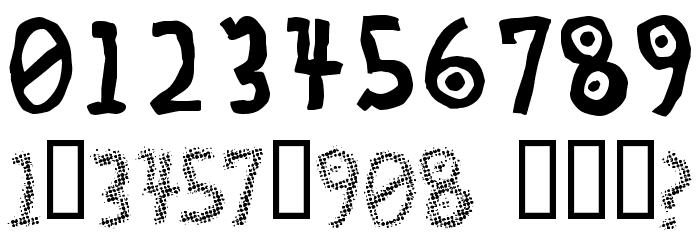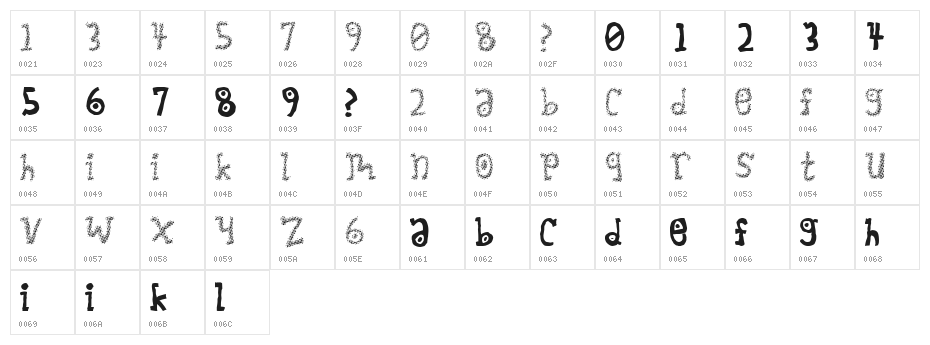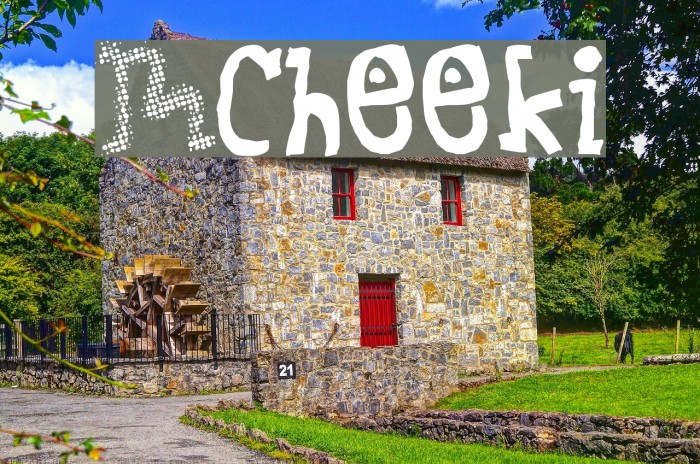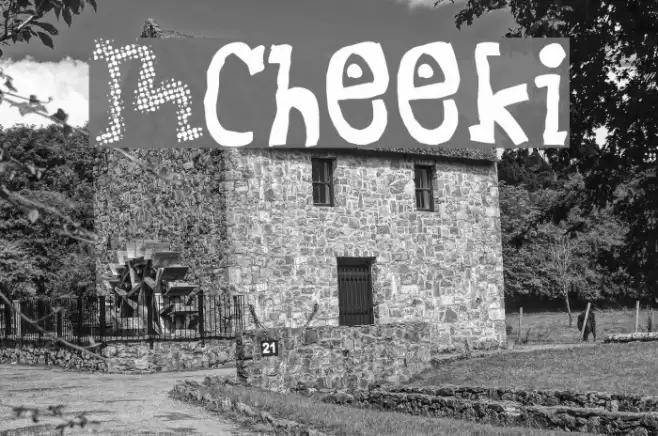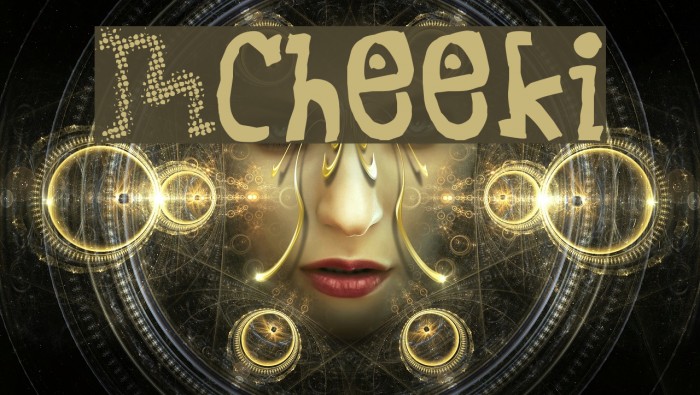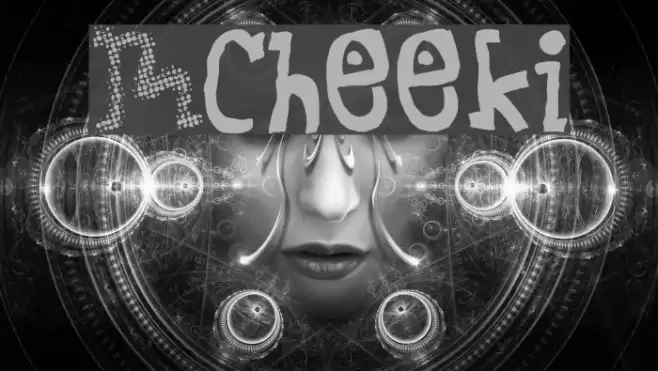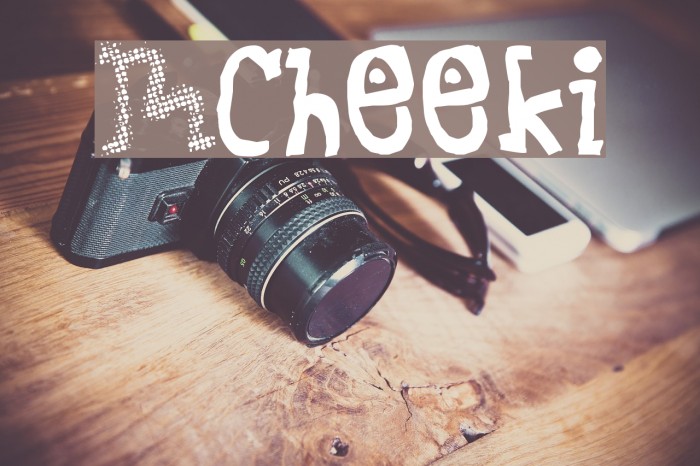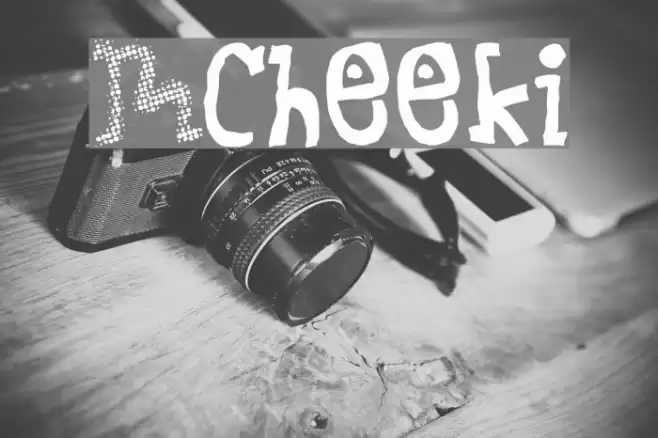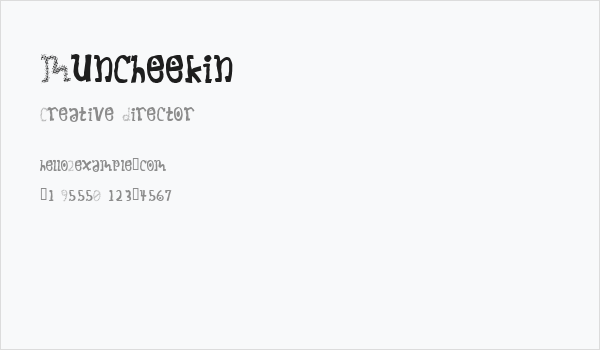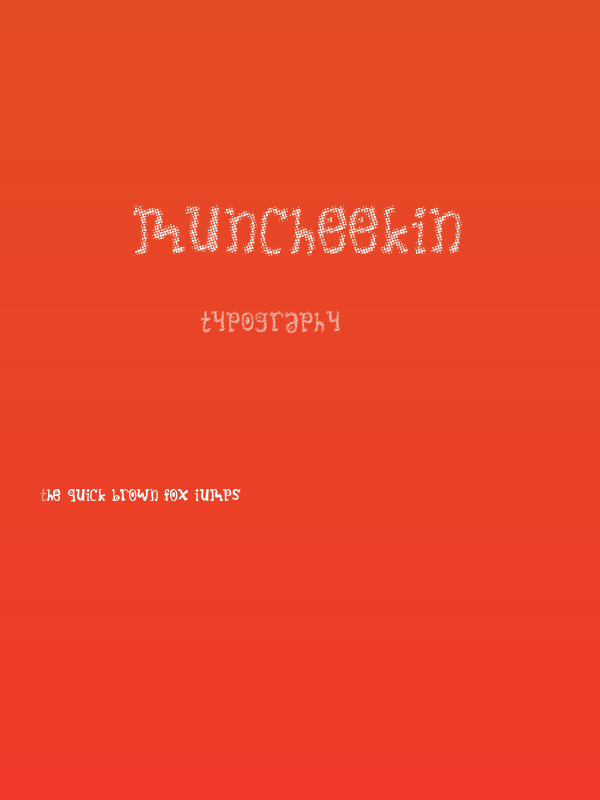
Muncheekin Font
Muncheekin Description
This playful and whimsical font features a unique, hand-drawn style with a slightly irregular baseline, giving it a lively and dynamic appearance. The characters are bold and rounded, with a distinct, cartoonish flair that adds a sense of fun and creativity. The font includes both uppercase and lowercase letters, as well as numerals and a selection of special characters. Its bold strokes and exaggerated forms make it highly legible, while the quirky design elements add personality and charm. The font's overall style is reminiscent of children's handwriting, making it ideal for projects that require a touch of youthful exuberance.